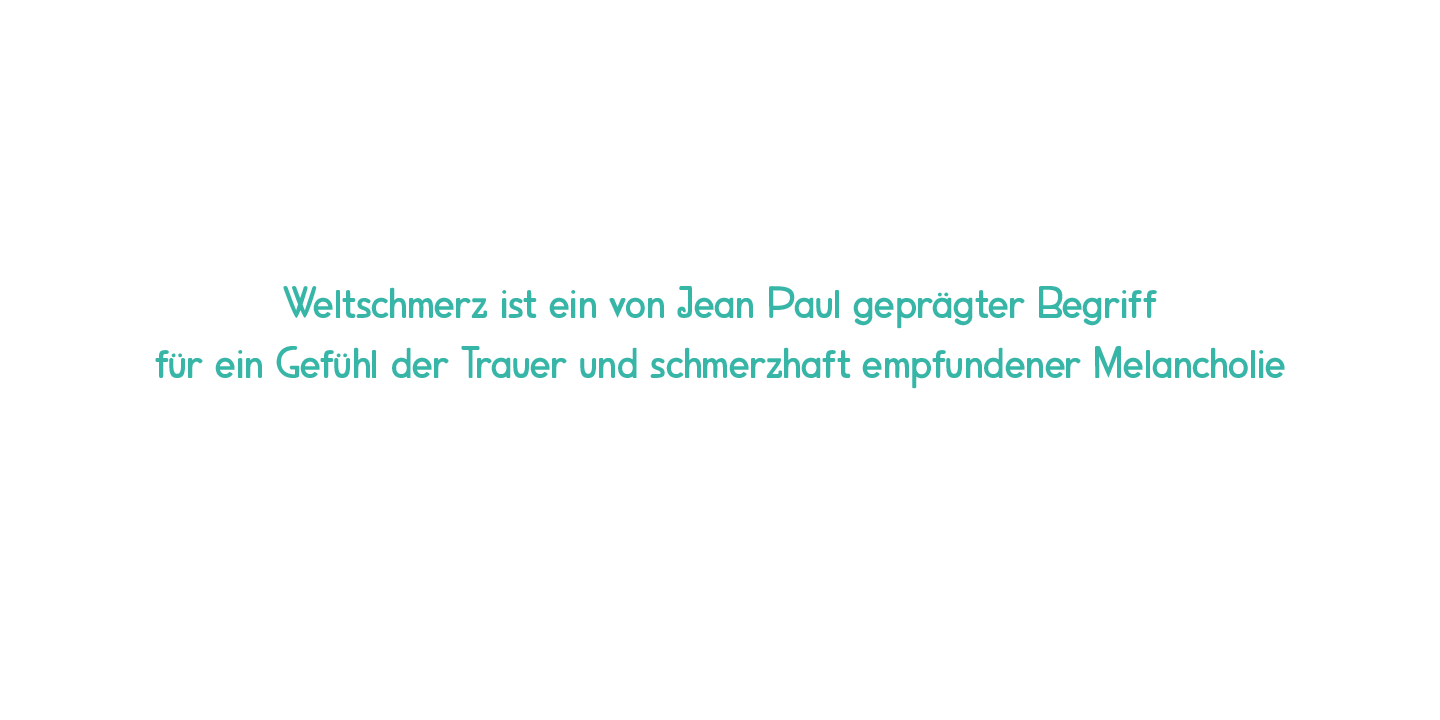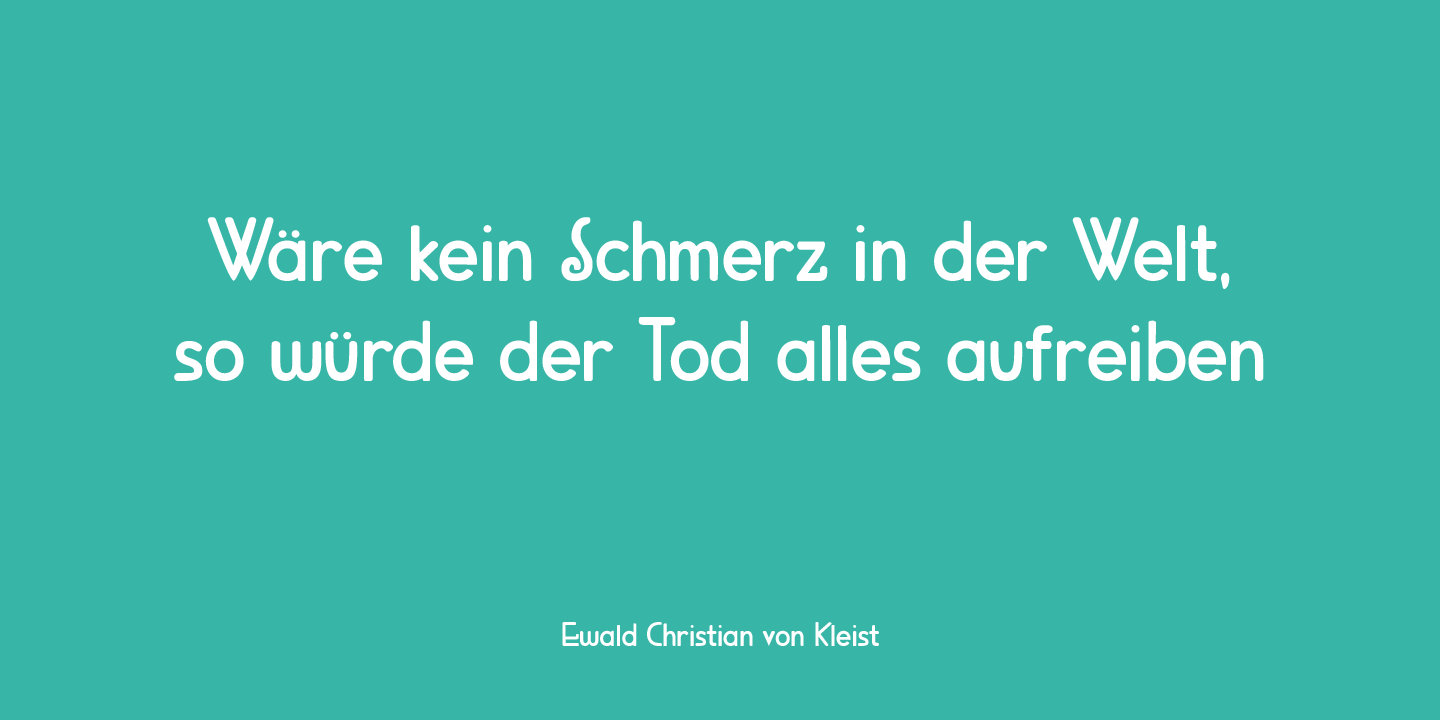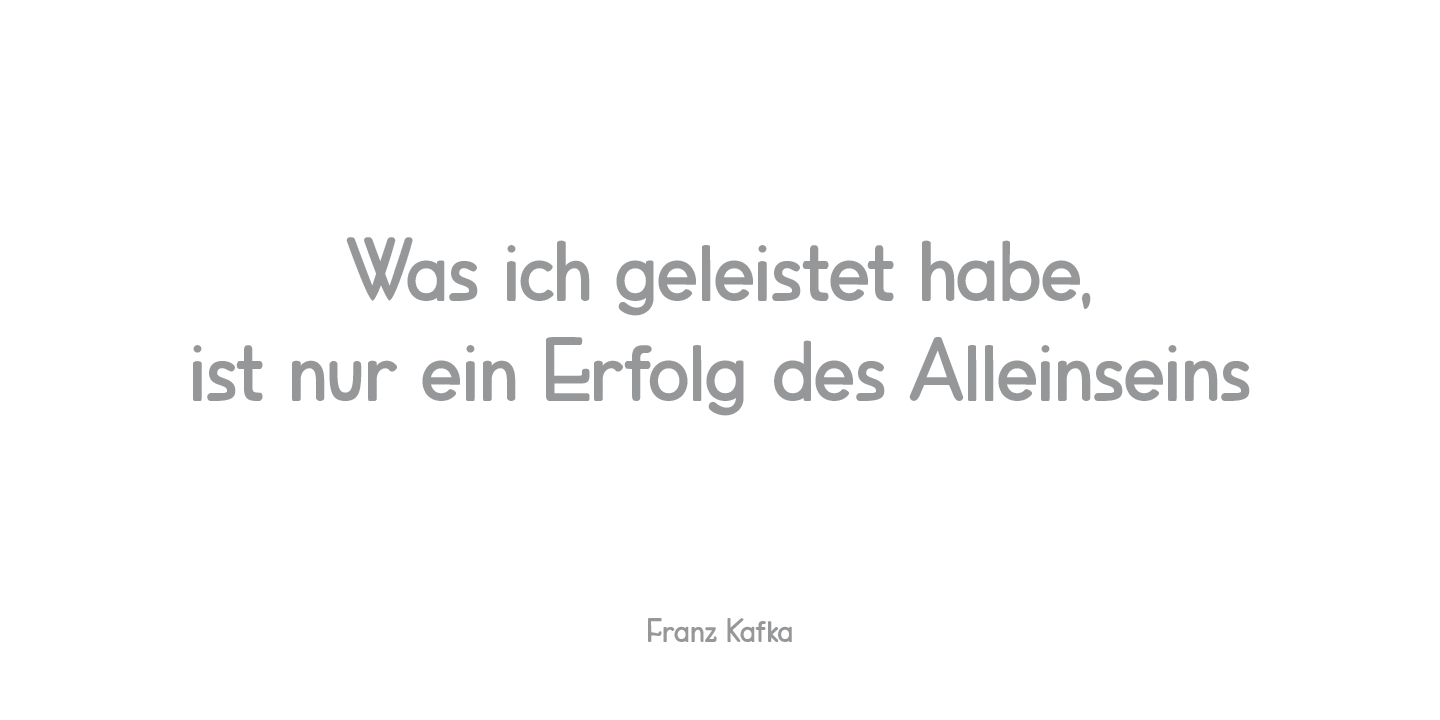
About Neuer Weltschmerz
About 7 years ago, I released a beautiful (imho) Art Deco inspired font called Weltschmerz. Weltschmerz was an all-caps font and I always wanted to do a lower case version as well. But as things so often go in life, I never found the time and forgot about…